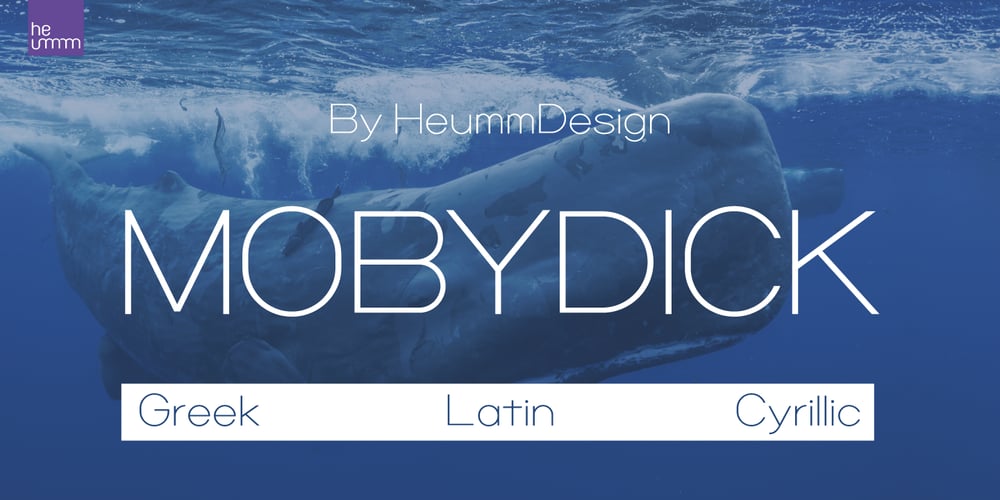
HU Mobydick
HU Mobydick font
HU Mobydick Font Family was designed by Hyo Lee and published by Heummdesign. HU Mobydick contains 1 styles and family package options. HU mobydick is a body font with square modules and a wide space composition. Sharp right-angled joints and strong endings. And thin strokes are combined to complete a harmonious typeface for body text. The gray level of the body text is set low, so it can be used for light work.